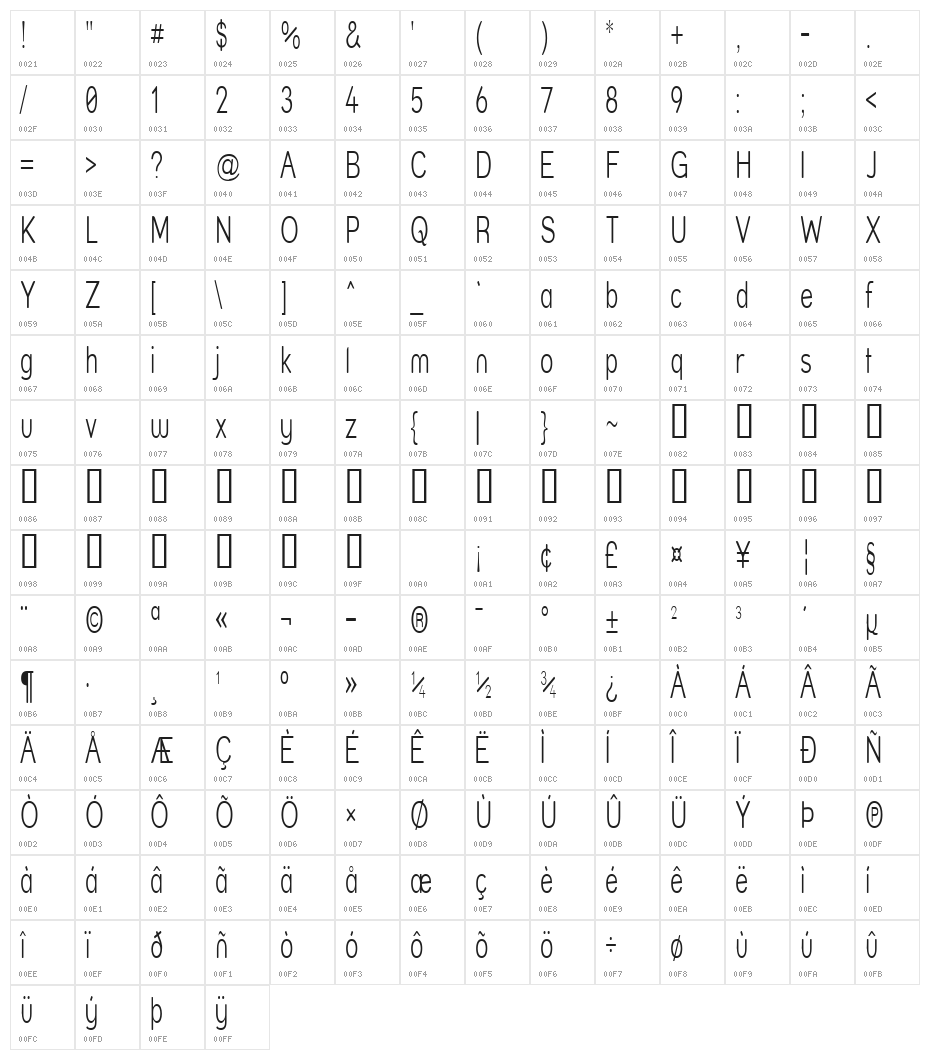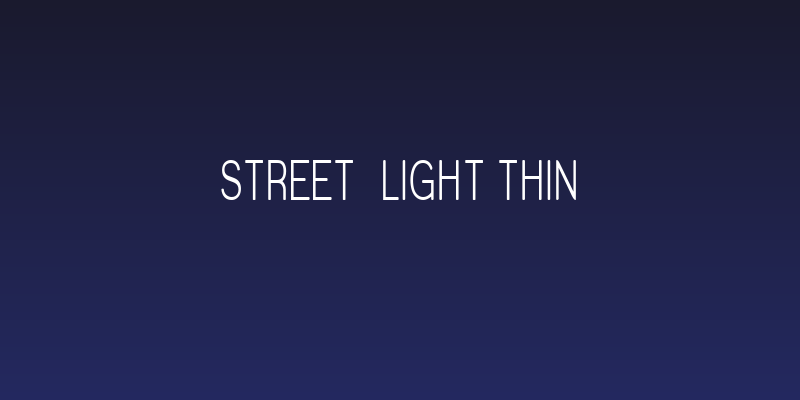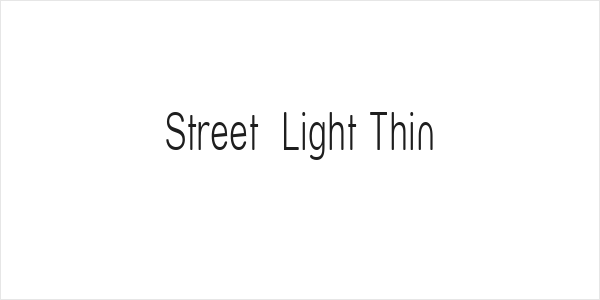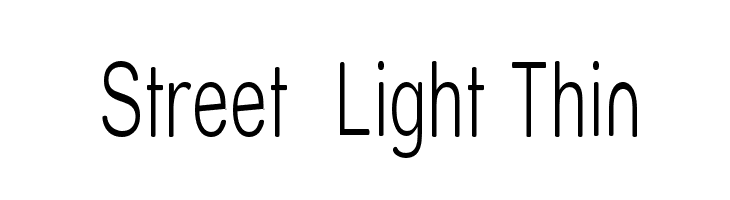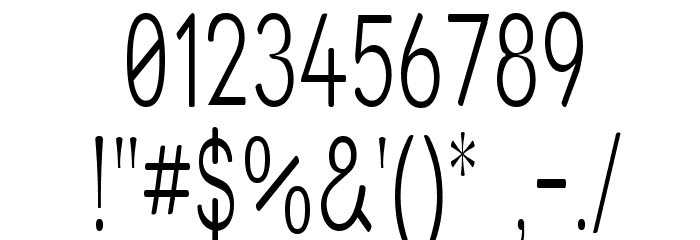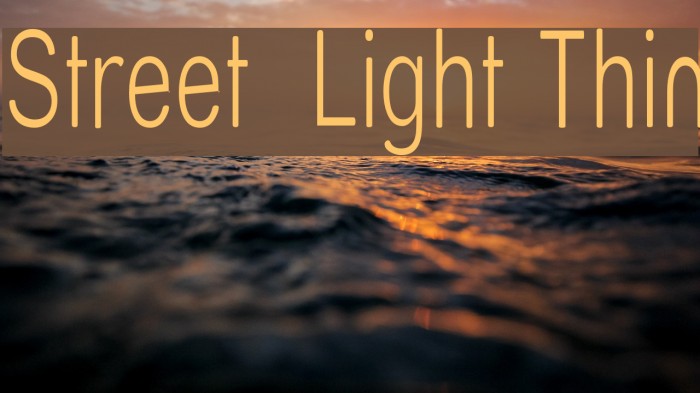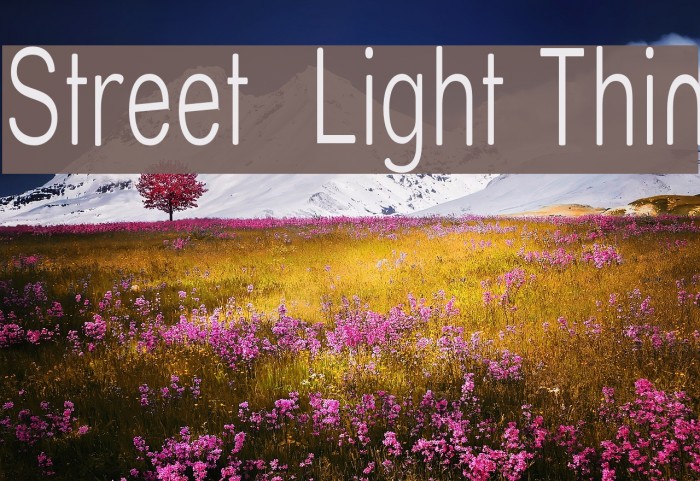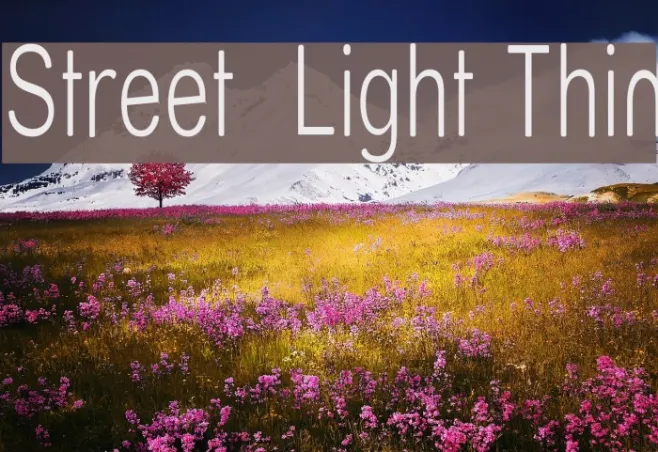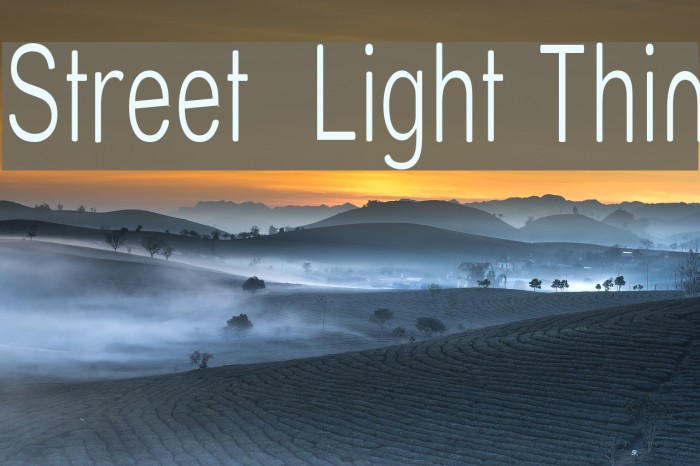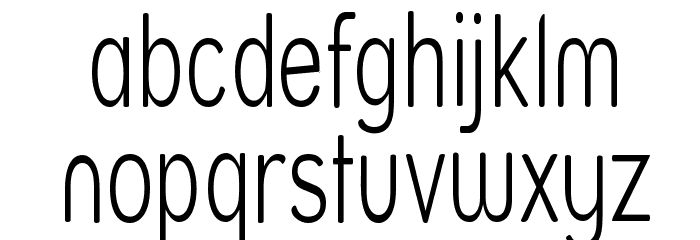
Street Light Thin Font
Street Light Thin Description
This font features a clean and modern sans-serif design with a thin weight, offering a sleek and minimalist appearance. The characters are evenly spaced with a normal width, providing excellent readability. The uppercase and lowercase letters maintain a consistent height, contributing to a uniform and balanced look. The numerals and special characters are designed to match the overall style, ensuring a cohesive visual presentation. The font's simplicity and elegance make it versatile for various design applications.